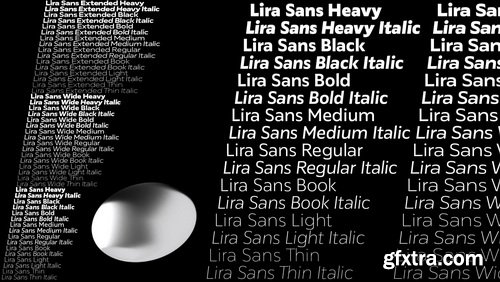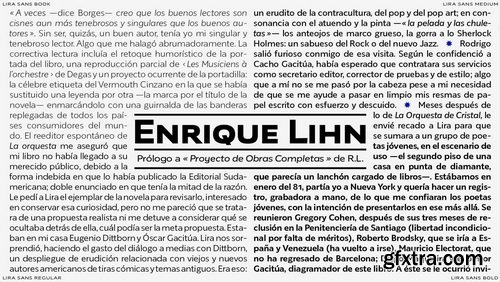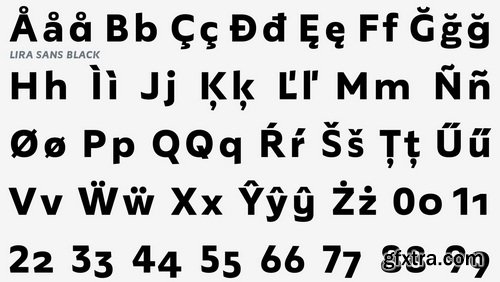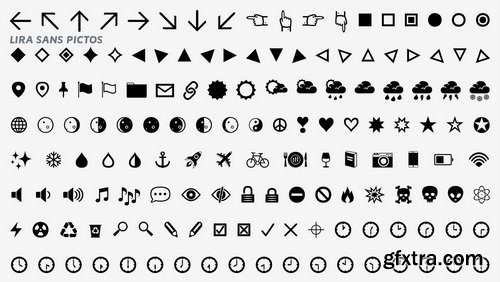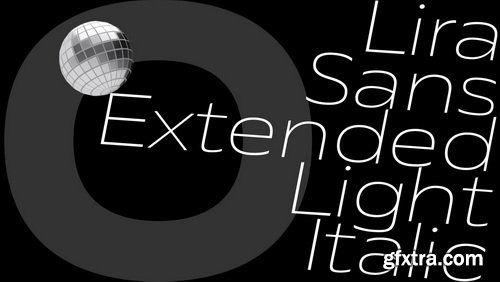
Lira Sans is conceived using a rational drawing method, allowing a very flexible letter-shape that works along the whole design space. We have looked for clarity and austerity in its looks, without losing a particular and distinctive tone of voice when is typesetted. Lira was designed with usability in mind to meet the everyday needs in Communication and Graphic Industry, especially in Information or Editorial Design where the need of a well crafted typeface is crucial.